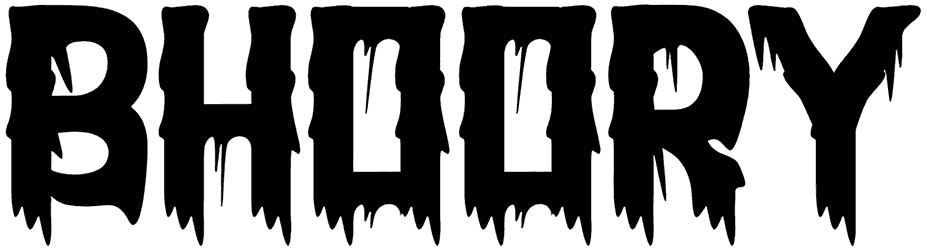
Bhoory Font
The use of the Halloween font Bhoory will give your digital creations a bloody, dripping appearance, perfect for the horror theme. Sliding this scary-looking melting font onto your posters, greeting cards, quote graphics, and other design projects will guarantee that you’re ahead of the curve.
However, you should be aware that it only has the numeric digits 4 and 5. Try it if you like a challenge because the result will blow your client’s mind.